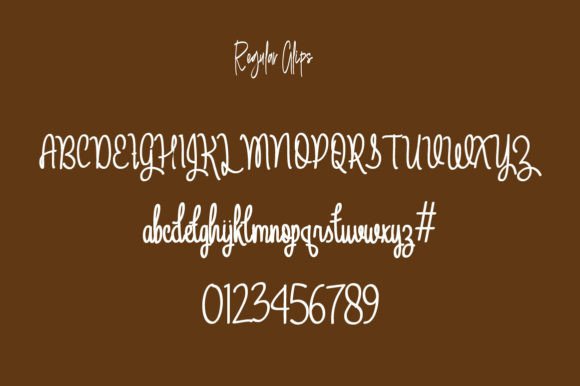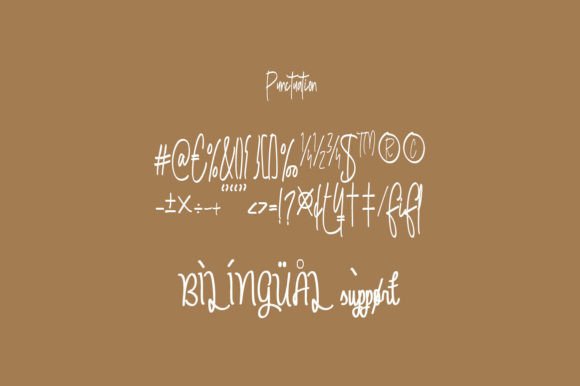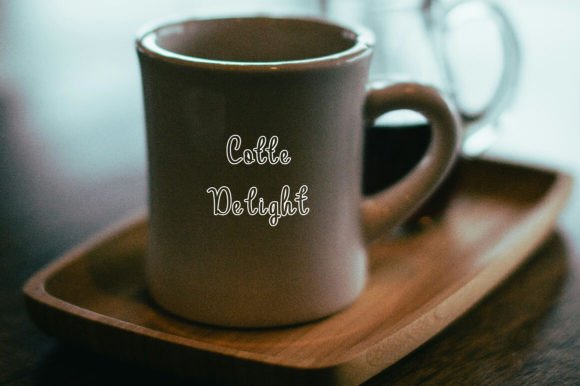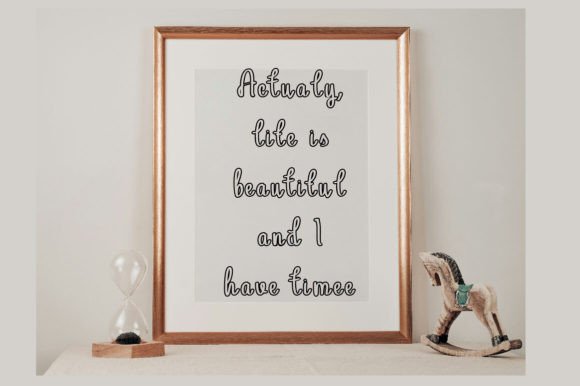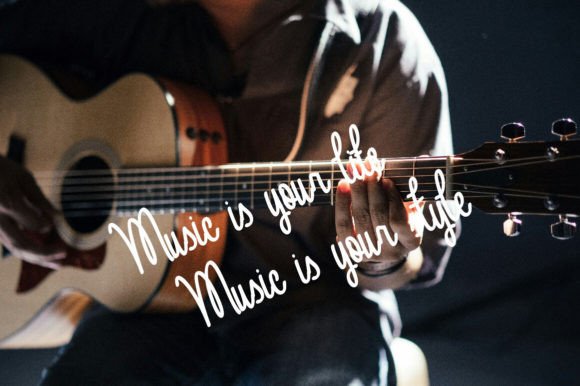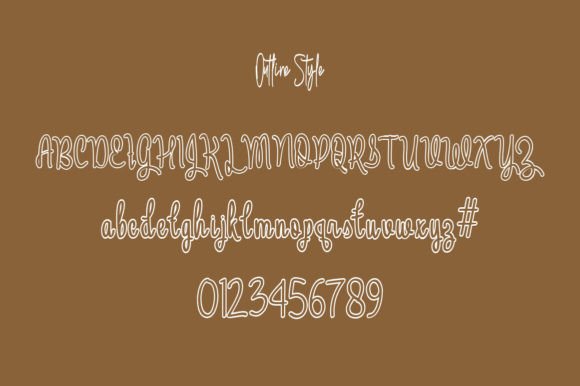
Introduction to Monalisa Delight Font
Monalisa Delight is a charming handwritten font that exudes warmth and friendliness.
With its smooth, flowing strokes and playful curves, it brings a sense of whimsy to invitations, packaging, and social media graphics Spread joy and delight with the inviting charm of Monalisa Delight.
Key Features of Monalisa Delight Font